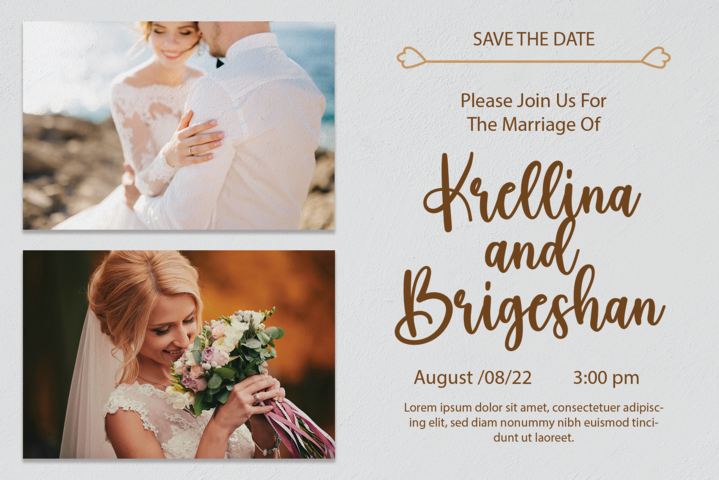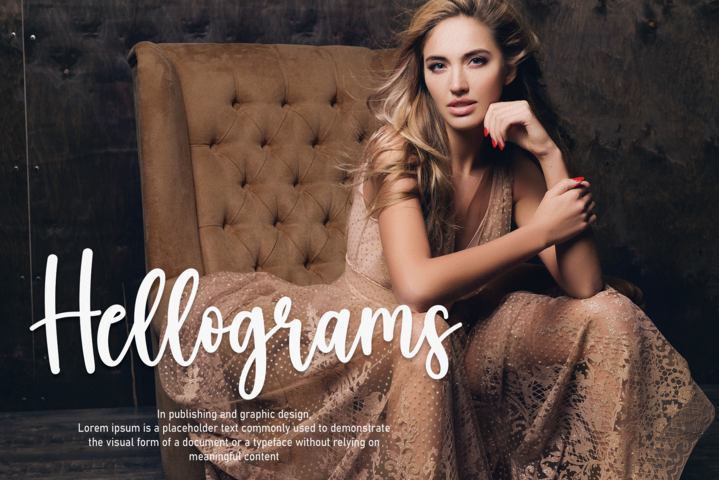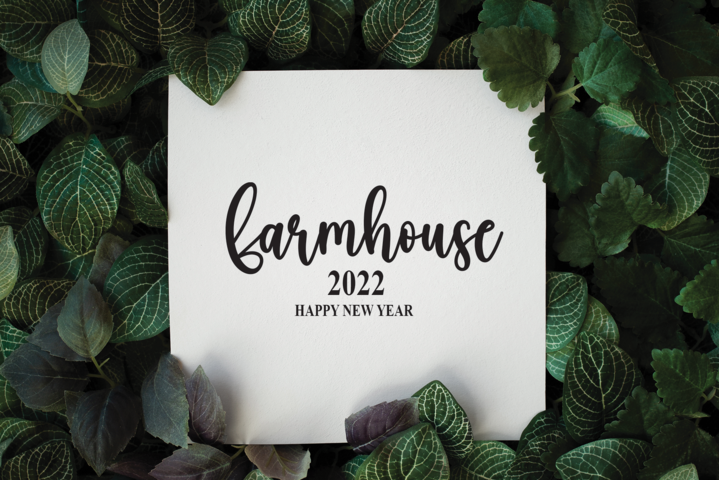
Boho Typeface
Boho Script Typeface
This is a sweet and cursive handwritten font. This gentle font will look gorgeous on a variety of design ideas. It will add a joyful and romantic touch to each of your projects!